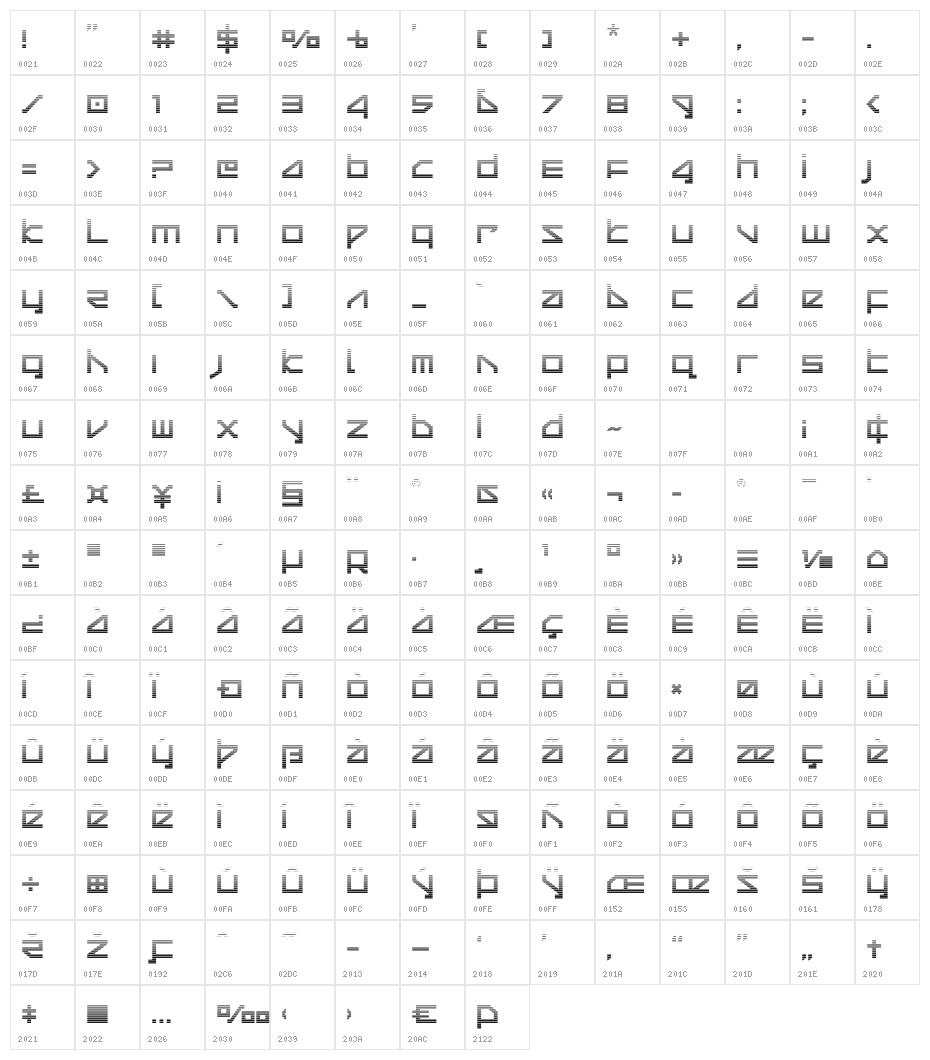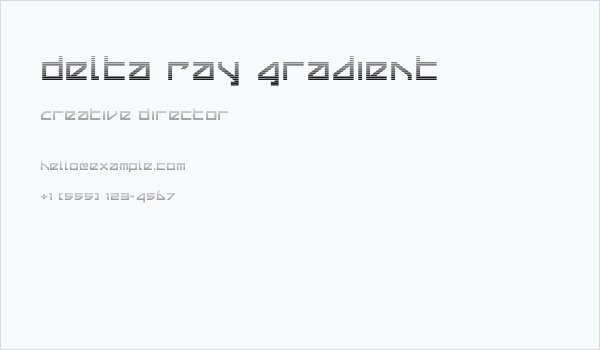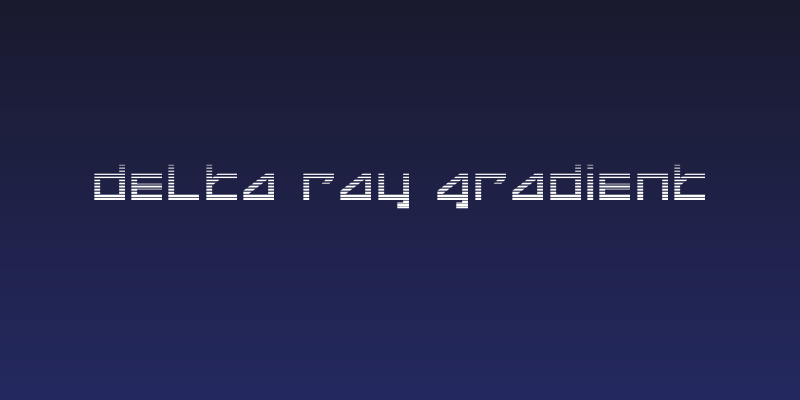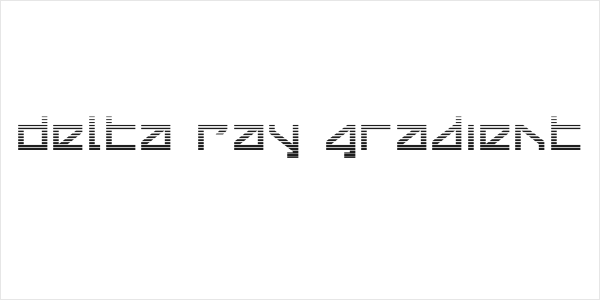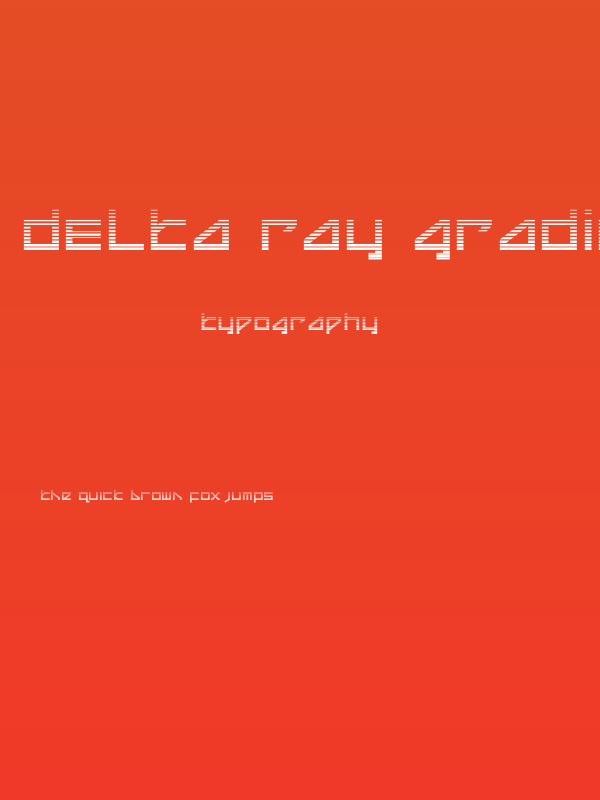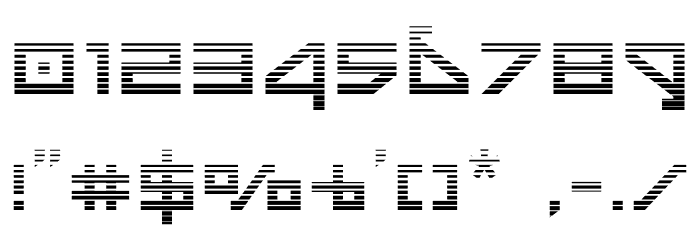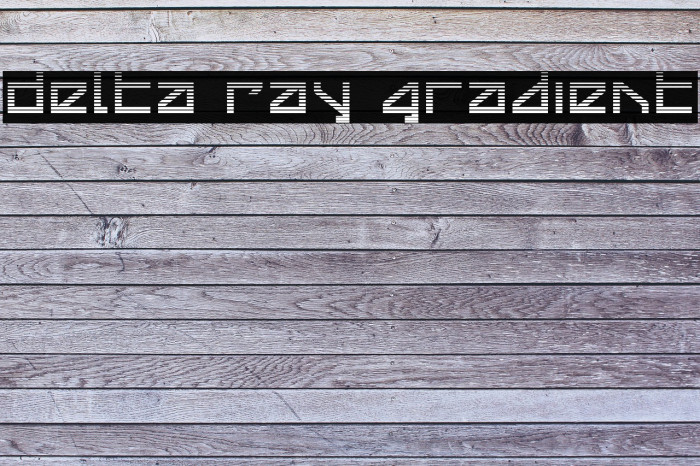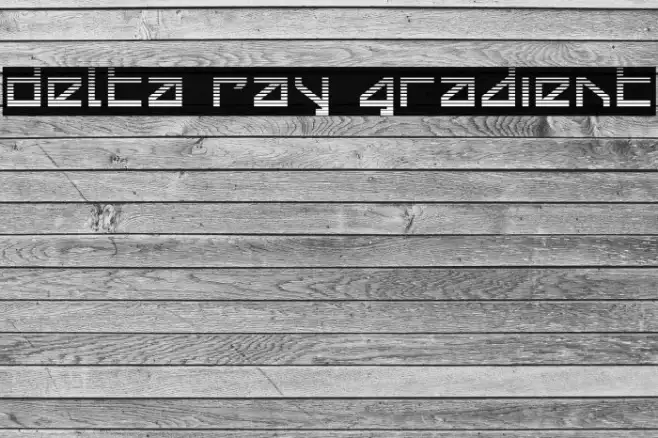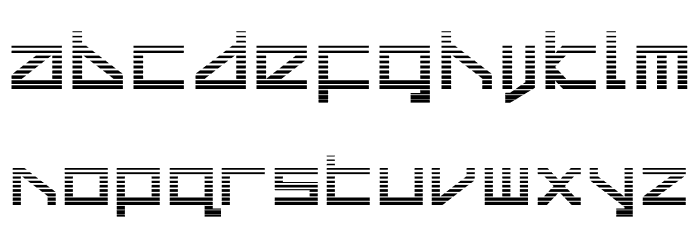
Delta Ray Gradient Font
Delta Ray Gradient Description
This font features a futuristic and digital aesthetic, characterized by its segmented, line-based design. Each character is constructed from a series of horizontal lines, creating a unique and modern appearance. The font maintains a consistent structure across both uppercase and lowercase letters, as well as numbers and special characters. Its geometric form and linear style give it a tech-inspired look, making it ideal for digital and sci-fi themed projects. The font's distinct style ensures high readability while maintaining a decorative edge.
| Proposed Projects | Ideal for digital interfaces, sci-fi themed designs, tech branding, and modern posters. |